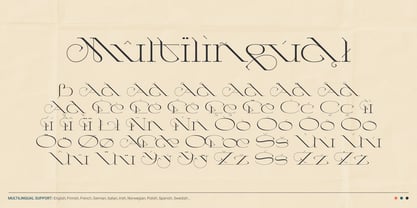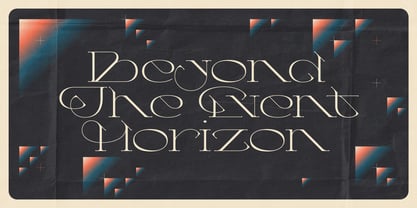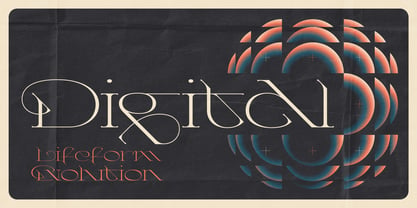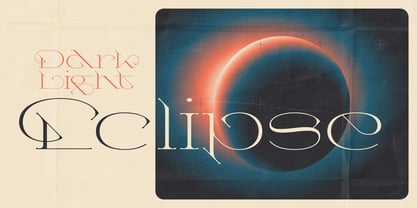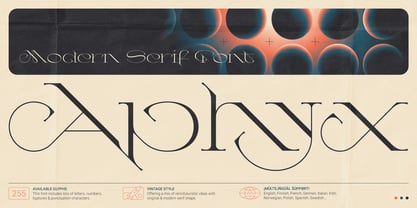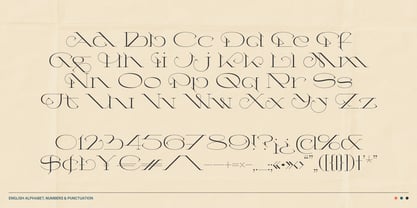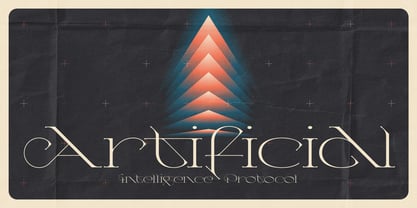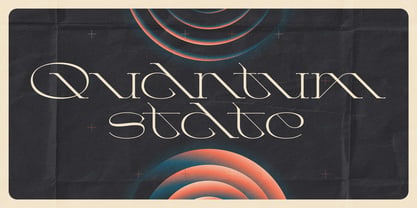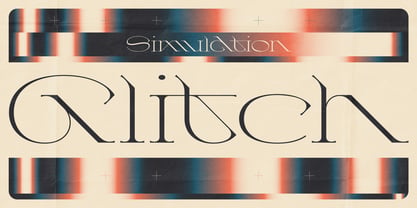
Aphyx
by Gleb Guralnyk
The Aphyx Font Family was designed by Gleb Guralnyk and published by Gleb Guralnyk. Aphyx contains 1 styles. More about this family
Introducing Aphyx, a modern serif font with original shapes. It features a unique blend of vintage Y2K vibes and authentic modern design. Whether you are designing a high-end fashion magazine or a bold branding project, this typeface adds a sophisticated yet nostalgic touch to any layout. The Aphyx font includes a wide set of characters, such as ligatures, alternates, and multilingual support. Check out the screenshots to see the full character set.
A lot of my fonts inherits vintage graphic styles but nevertheless I don't like to stick to one theme for a long time. That's why I'm trying to create fonts in different styles and from different eras, from old gothic calligraphic to modern handwritten scripts, from medieval antique to minimalist sans-serif typefaces. It's always interesting to design something new, and expand my skills in novel font design directions.